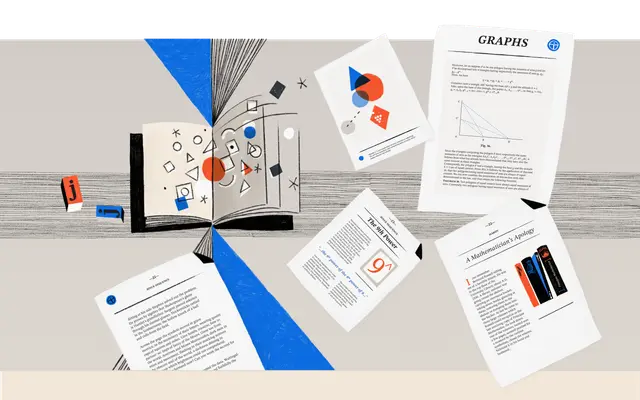
STIX Two
Tiro Typeworks · Ross Mills · 2016
A thoroughly redesigned scientific and mathematical typeface commissioned by a consortium of technical publishers, available under an open source licence.
Designed by Ross Mills at Tiro Typeworks, STIX Two departs from its Times New Roman clone origins to reference the original 10pt metal Times, producing sturdier forms suited to both print and digital. The Text family offers four weights with italics as variable fonts, while the Math font implements the OpenType MATH table with a massively extended Unicode character set covering alphanumeric styles, operators, and technical symbols. Pan-European Latin, Cyrillic and Greek are covered alongside IPA phonetic characters, making it a thorough choice for scientific and academic publishing.
STIX Two is a transitional serif, redesigned from a Times New Roman clone to reference the original 10pt metal Times, with more rugged forms suited to scientific and technical text setting.